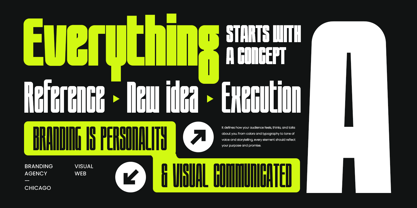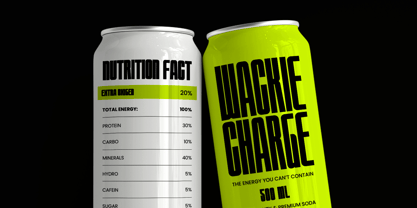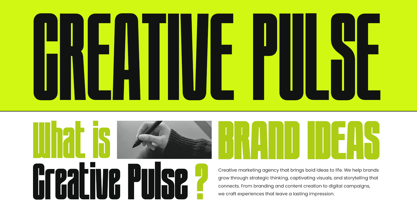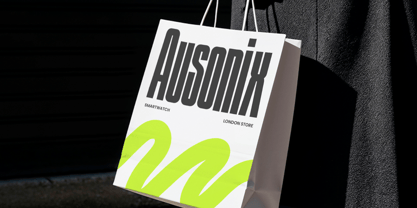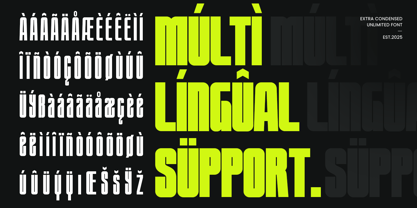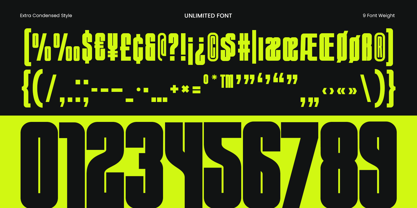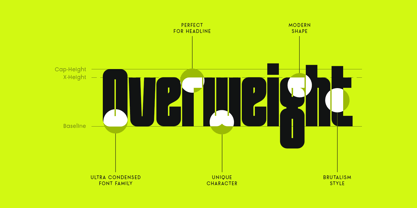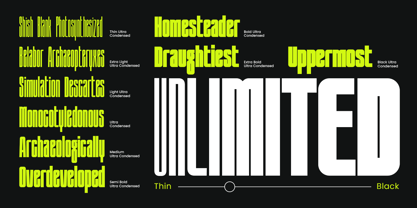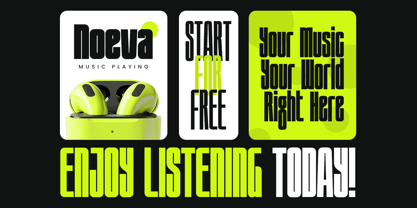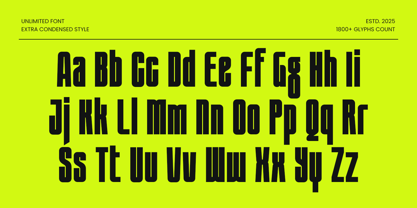
UNLIMITED is an extra condensed font crafted for bold visual statements and contemporary design. Its tall letterforms and compact width create a sense of power and precision — making it perfect for impactful headlines, posters, and modern branding projects.
With clean geometry and confident proportions, UNLIMITED delivers both clarity and presence in any composition. It’s designed for designers who want to maximize space without sacrificing style, offering a sleek and professional look across all media.
Ideal for magazine titles, product packaging, and digital campaigns, UNLIMITED brings strength, balance, and sophistication to every project. Its versatility makes it suitable for both creative and corporate environments where bold typography is key.
Font Features:
Bold and tall extra condensed design for maximum impact
Perfect for headlines, branding, posters, and editorial layouts
Clean geometric structure for modern typography
Great for both print and digital applications
Uppercase, lowercase, numerals, and punctuation included
OpenType features for advanced typographic control
Multilingual Support:
Supports a wide range of languages including Afrikaans, Albanian, Asu, Basque, Bemba, Bena, Breton, Chiga, Cornish, Dutch, English, Estonian, Filipino, Finnish, Friulian, Galician, German, Gusii, Indonesian, Irish, Italian, Kabuverdianu, Kalenjin, Kinyarwanda, Luo, Luxembourgish, Luyia, Machame, Makhuwa-Meetto, Makonde, Malagasy, Manx, Morisyen, North Ndebele, Nyankole, Oromo, Portuguese, Quechua, Romansh, Rombo, Rundi, Rwa, Samburu, Sango, Sangu, Scottish Gaelic, Sena, Shambala, Shona, Soga, Somali, Spanish, Swahili, Swedish, Swiss, and more.
Make a bold statement with UNLIMITED – the ultimate extra condensed font for modern, impactful, and professional design.